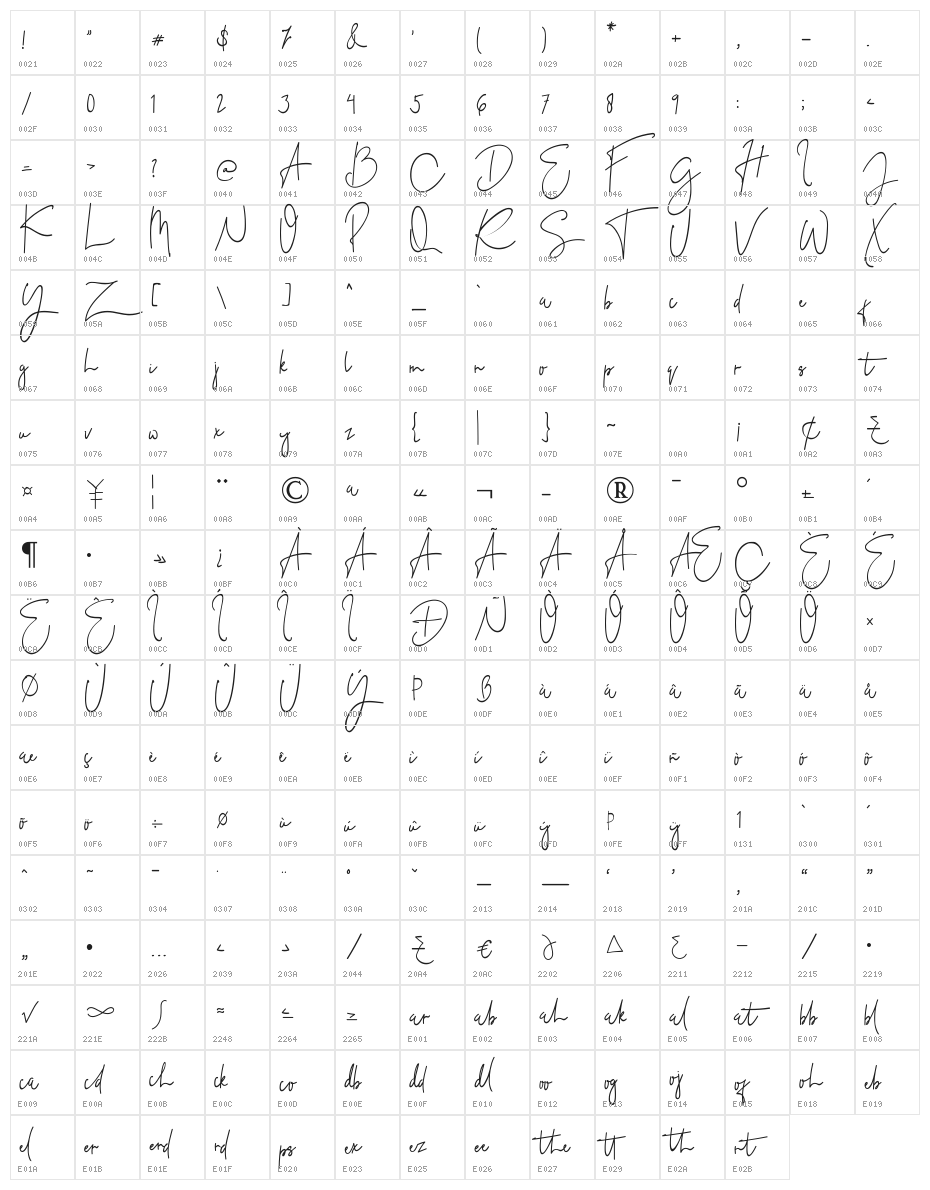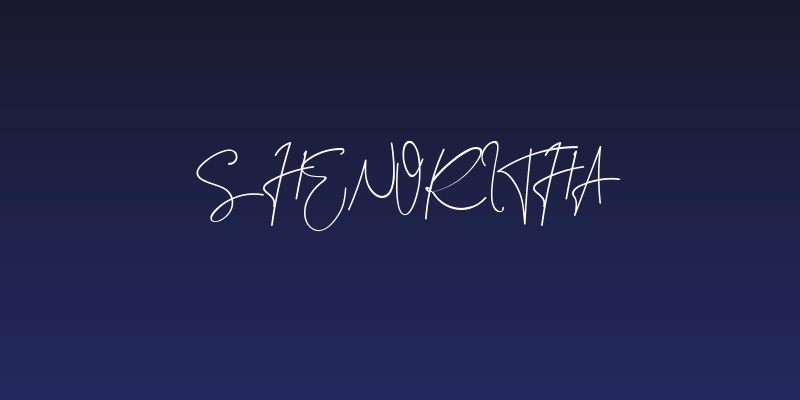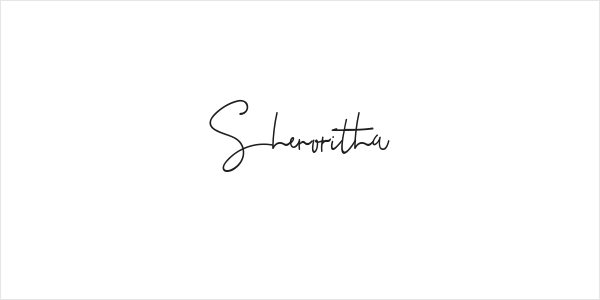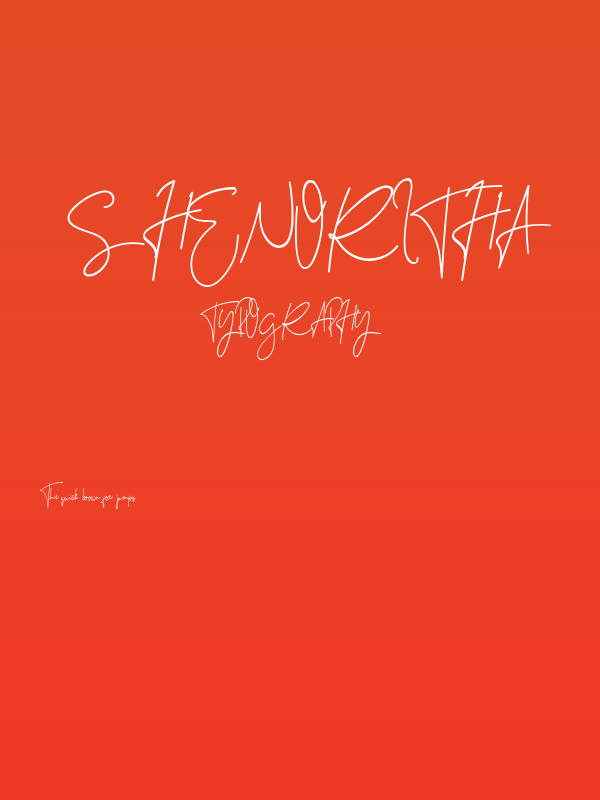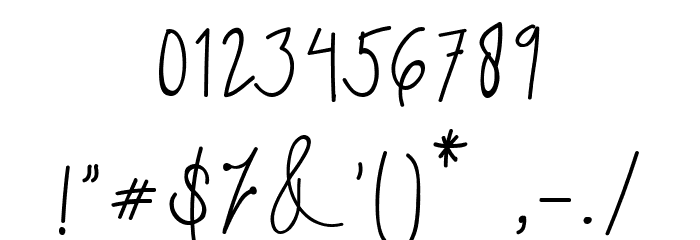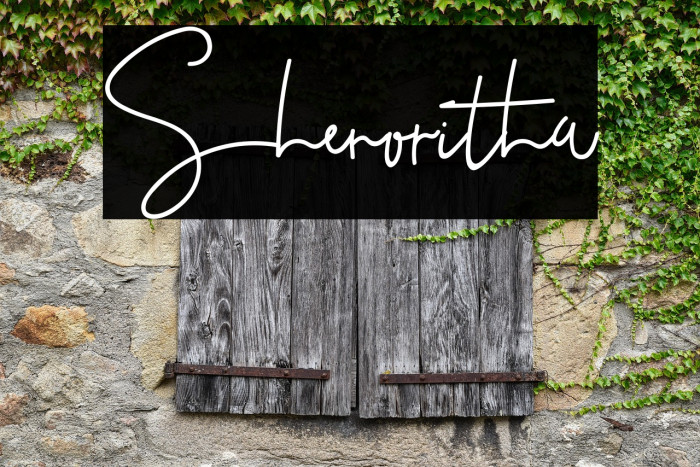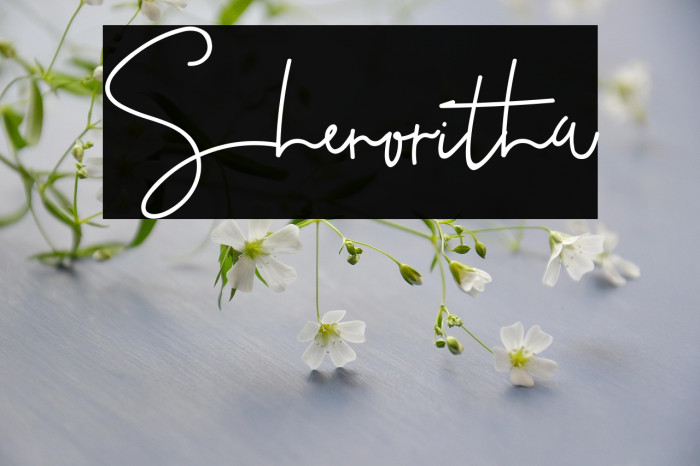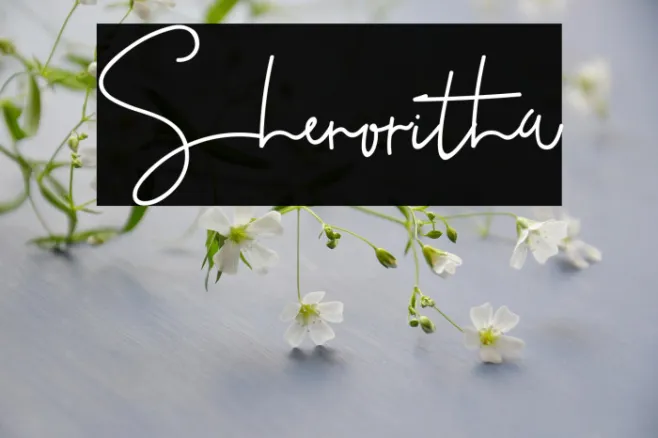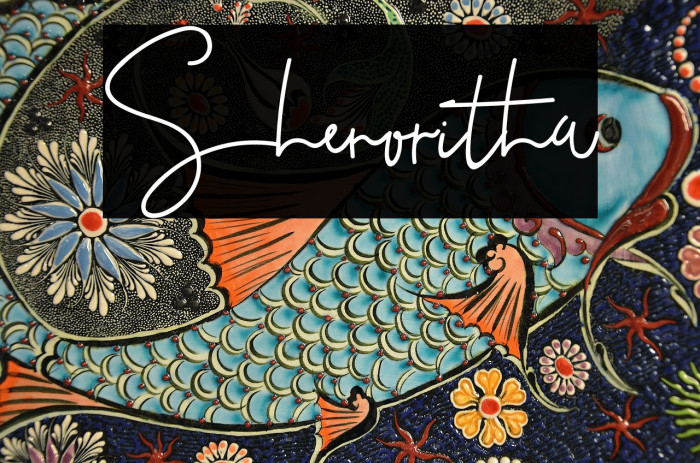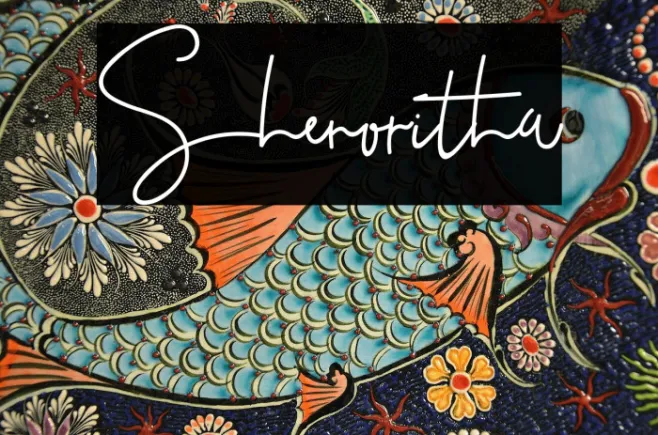
Shenoritha Font
Shenoritha Description
This font exudes a lively and dynamic energy, characterized by its fluid and cursive script style. The letters are interconnected with smooth, flowing lines that mimic the natural motion of handwriting. The uppercase letters are tall and elegant, while the lowercase letters maintain a consistent rhythm and flow. The numerals are distinct yet harmonize well with the overall script style. Special characters are crafted with the same attention to detail, ensuring a cohesive look across all glyphs. This font is perfect for adding a personal touch to any design, offering a sense of elegance and sophistication.
| Proposed Projects | Ideal for wedding invitations, personal branding, greeting cards, and elegant packaging designs. |